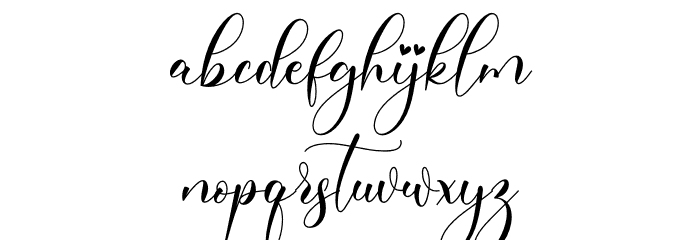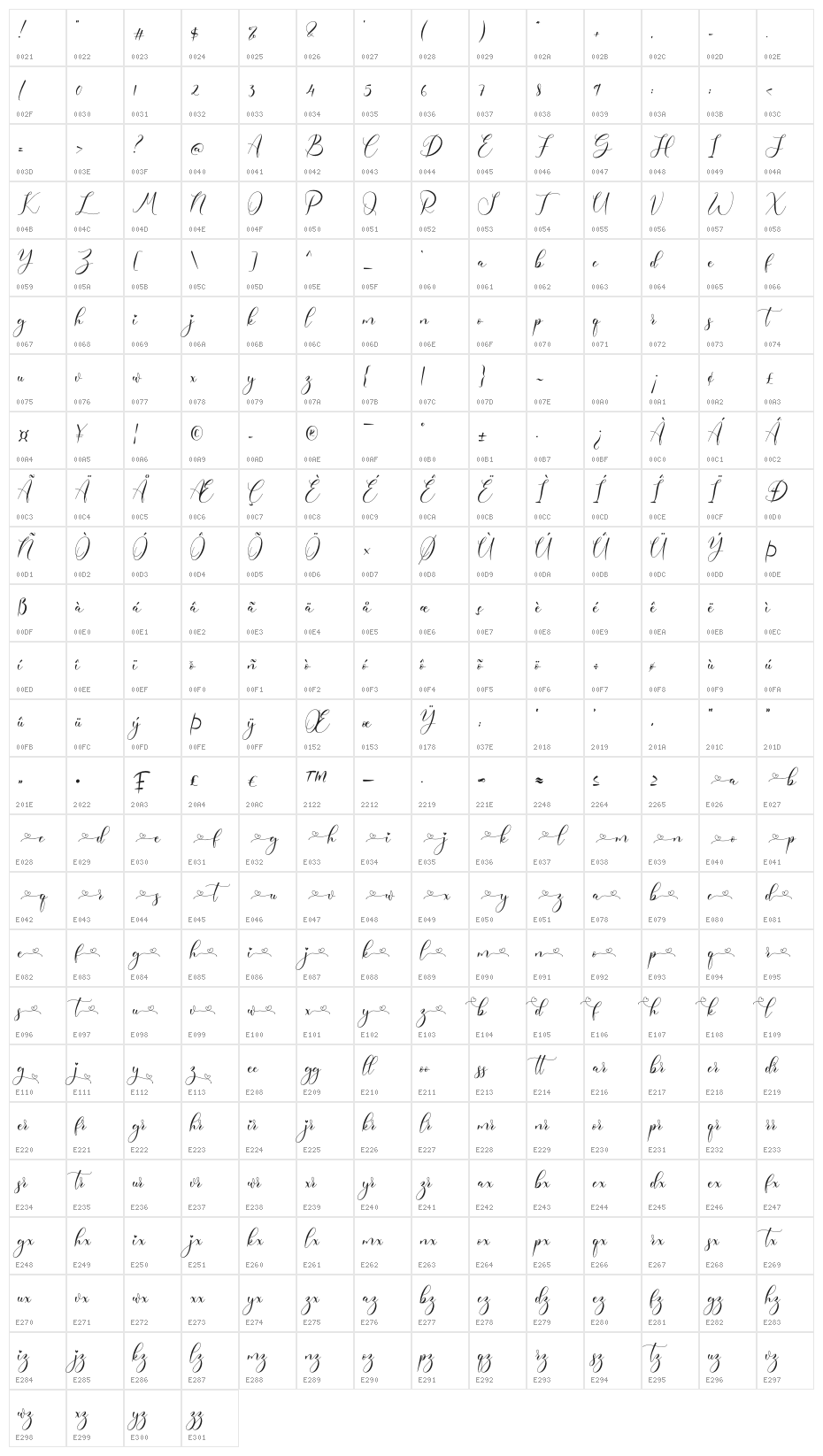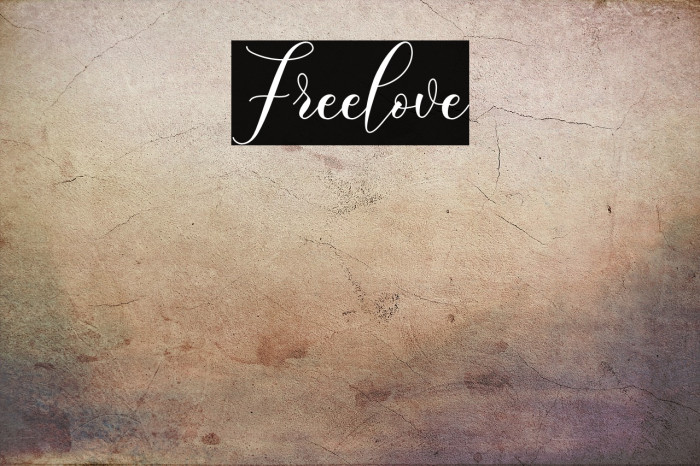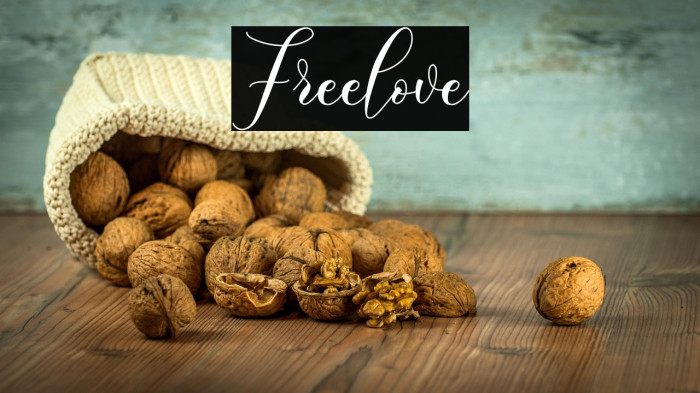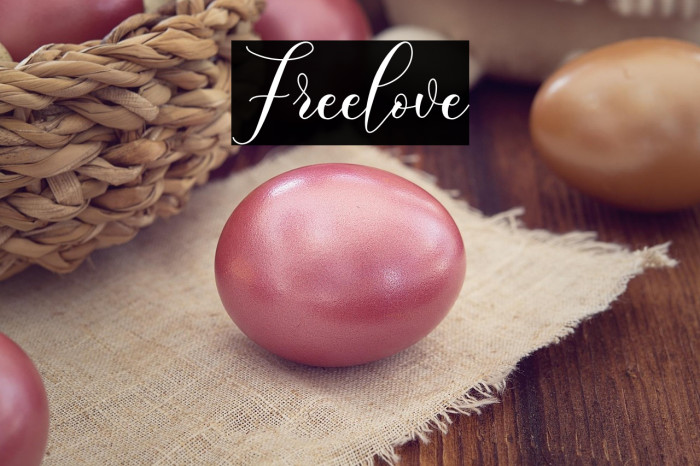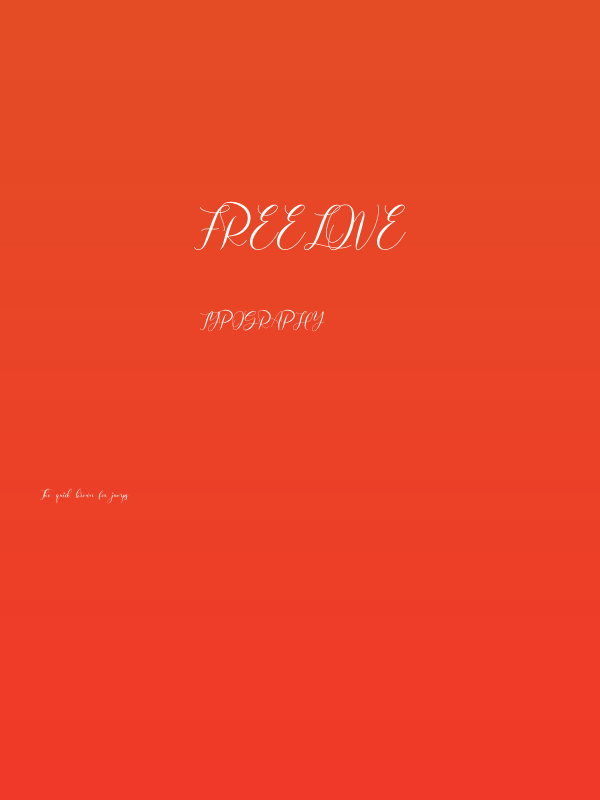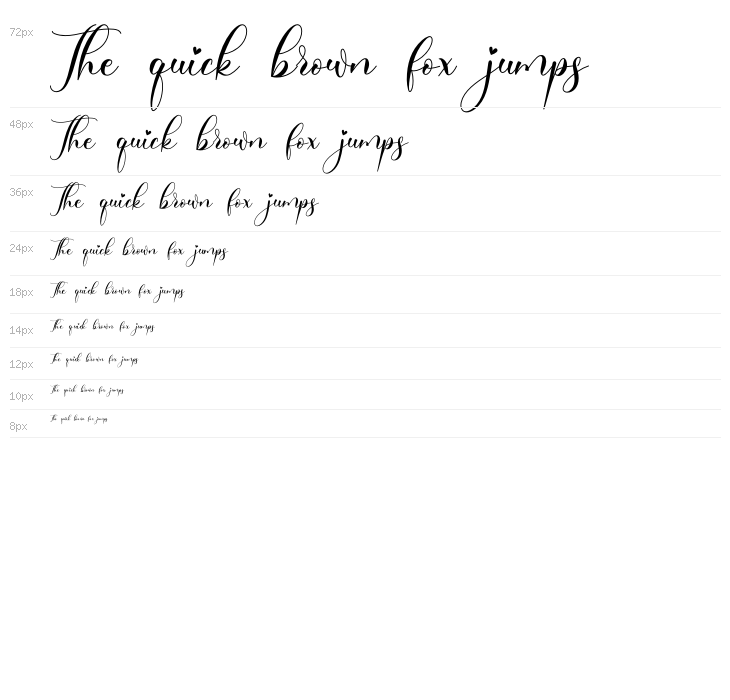
Freelove Font
This elegant script font features flowing, interconnected letters that exude a sense of grace and sophistication. The uppercase letters are tall and slender, with sweeping curves and delicate flourishes that add a touch of drama. The lowercase letters maintain a consistent style, with smooth transitions and a slightly more compact form. The numerals are distinct and maintain the same fluid style, ensuring readability while retaining the font's overall aesthetic. Special characters are thoughtfully designed to complement the letterforms, making this font versatile for various design needs. Its artistic flair and attention to detail make it suitable for projects that require a personal and refined touch.
A graceful and sophisticated script font with flowing, interconnected letters.
- Proposed Projects: Ideal for wedding invitations, elegant branding, personal stationery, and artistic posters.
- Category: Script
- Overall Style: Elegant
- Use Case: Logos, Invitations, Decorative text